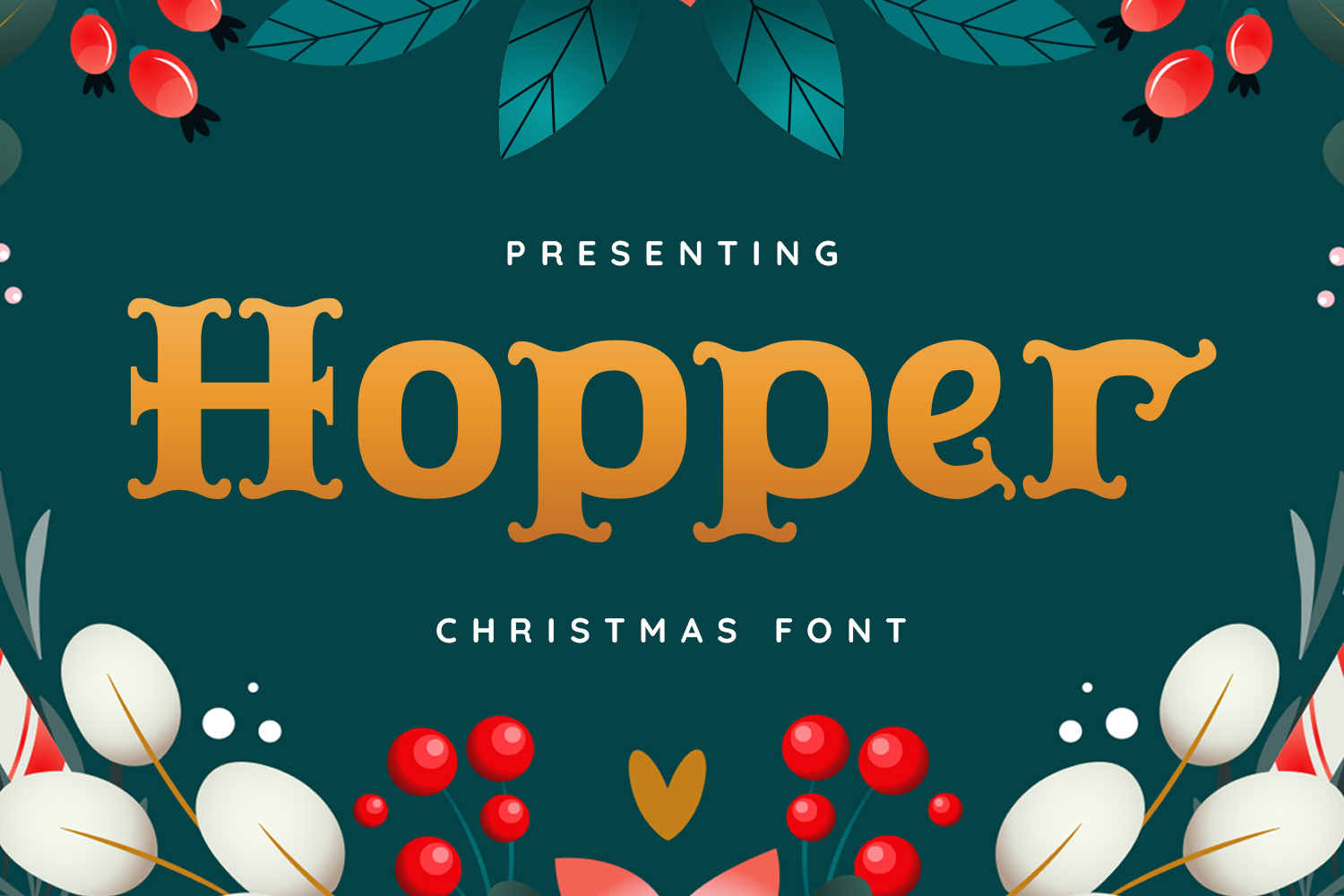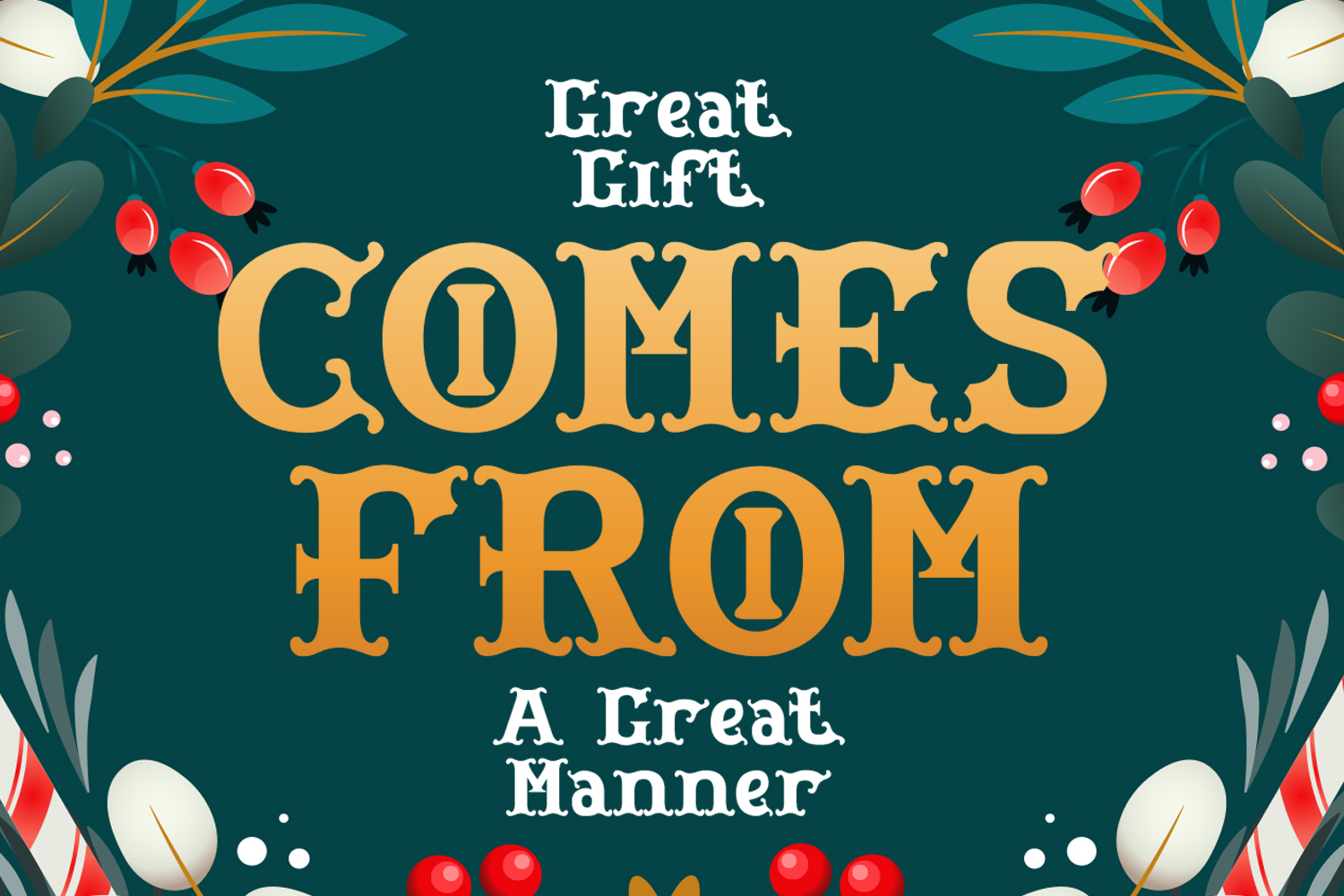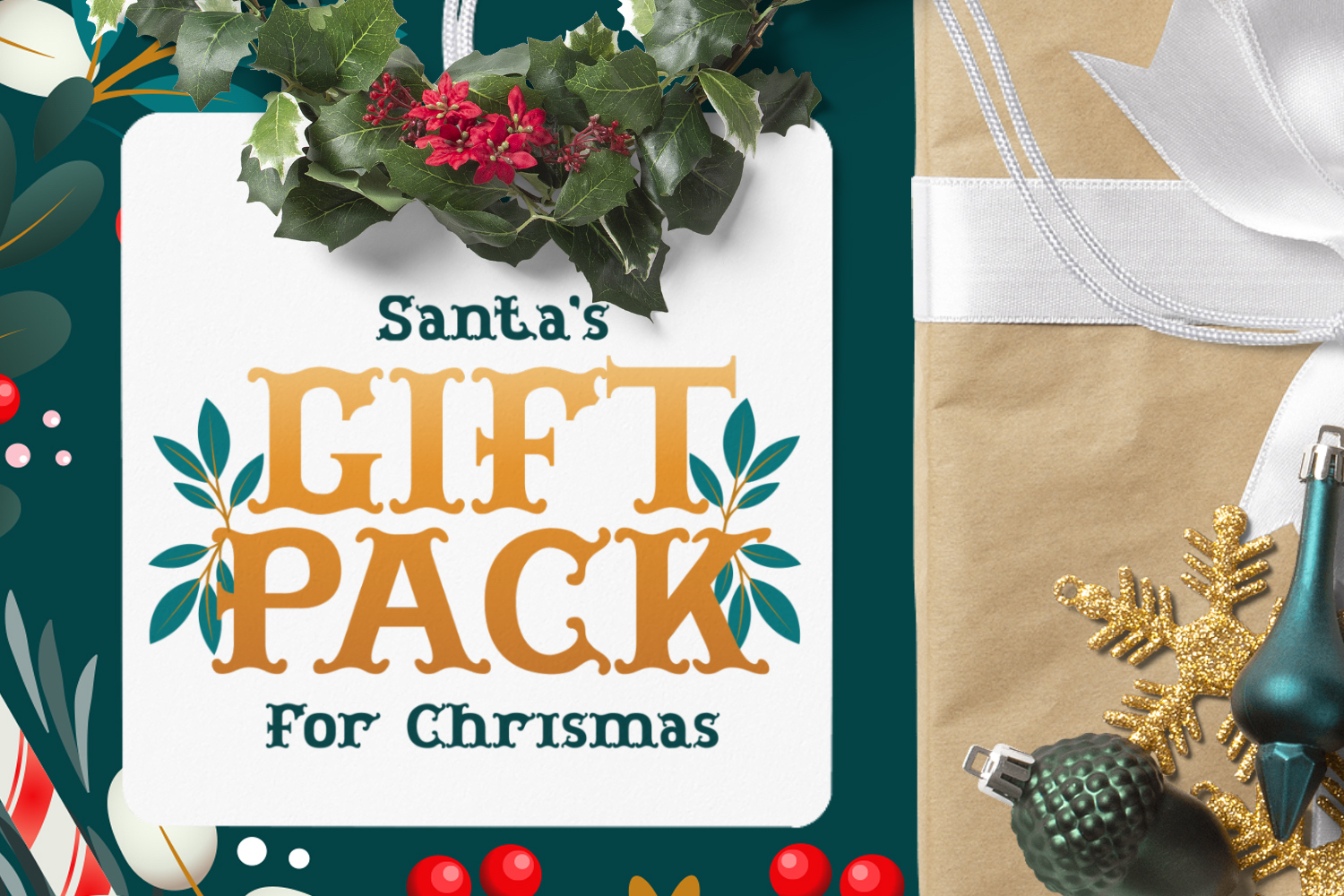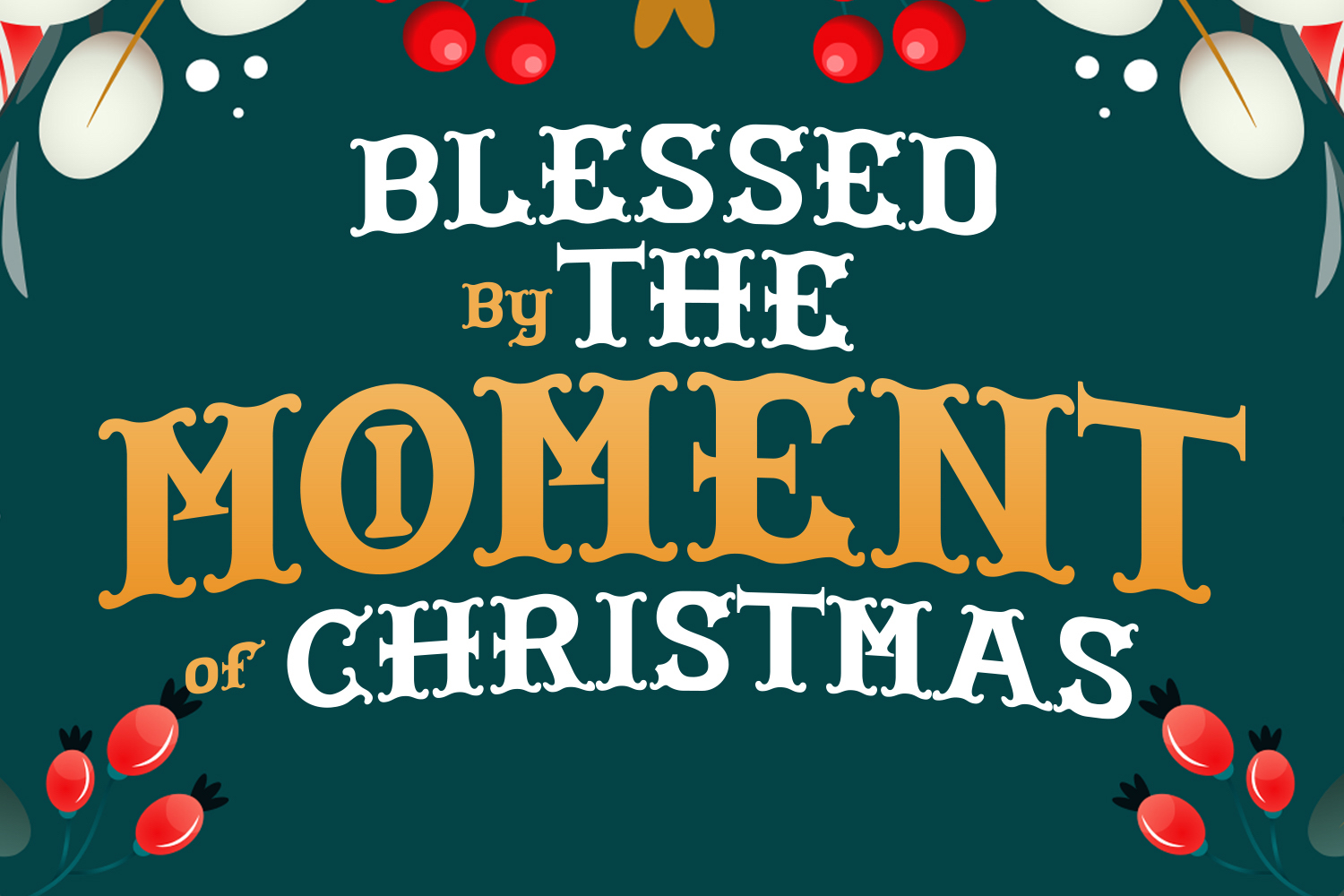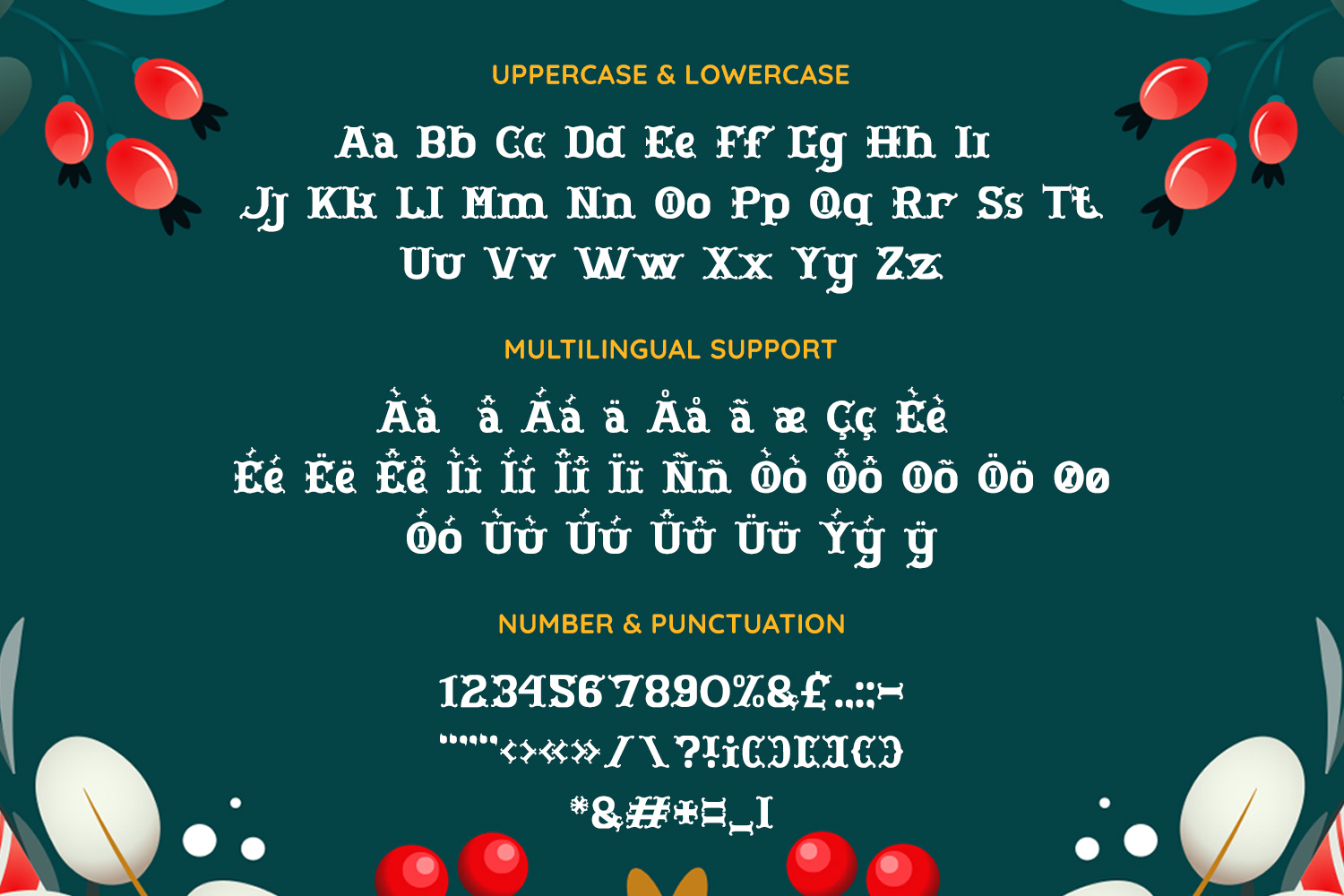
Hopper is a charming Christmas font that brings a touch of whimsy and joy to your holiday projects. Its rounded serif design, playful curves, and warm retro character make it perfect for festive greetings, gift packaging, winter event posters, and Christmas merchandise. The font evokes nostalgic cheer while staying fresh and creative in its layout and shape.
With full uppercase and lowercase support, multilingual characters, and festive punctuation, Hopper delivers both versatility and holiday spirit. It works beautifully for seasonal branding, digital invitations, DIY crafts, and more. Ensuring your message shines bright in the most wonderful time of the year.
Hopper